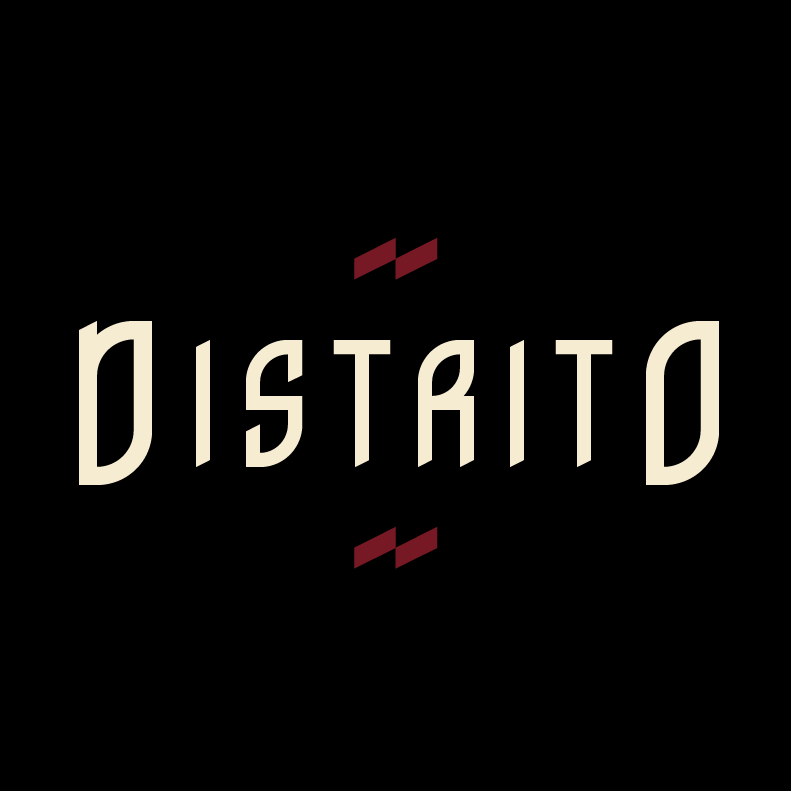
Geometric modular font inspired in the historical center of Bogotá, Colombia. http://www.domestika.org/es/projects/195391-distrito Thanks Dafont for sharing! |